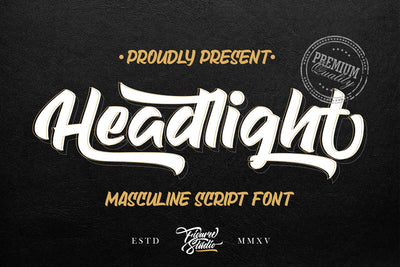
Headlight - Masculine Bold Script
The headlight comes from hand scratches to get natural writing. With the main style of the hand-lettering script, it will be very interesting if it is added with a variety of Alternates and also Stylistic Sets that are very suitable. The Headlight is very suitable for use in various media such as; packaging, logos, labels, posters, shirt designs, wisdom quotes, bulletins, typography, and many other media.
- Ligature
- Stylistic Alternates, Stylistic Sets (SS01-SS03)